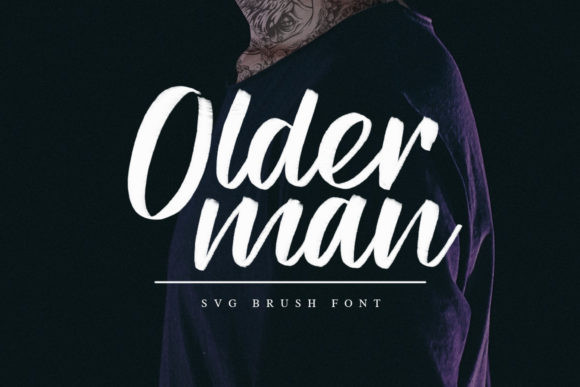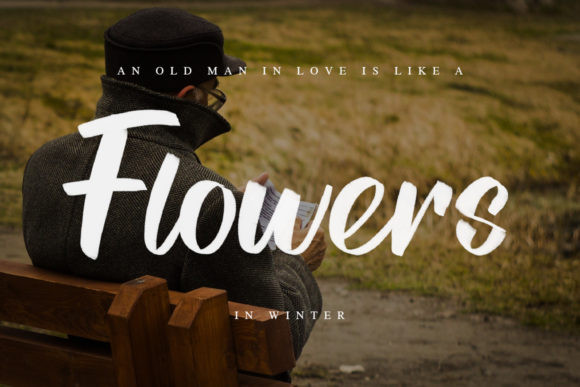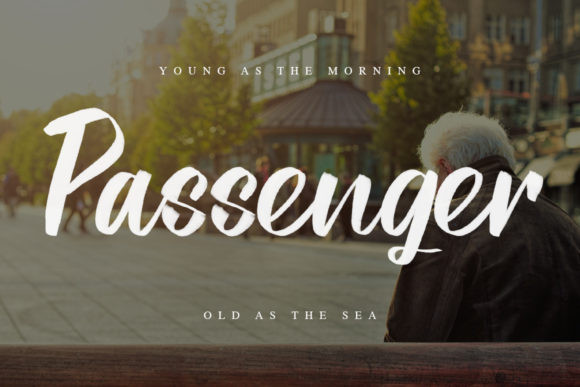
Older Man Font
Older man is a bold and modern handwritten font. Fall in love with its completely different and timeless style and use it to create spectacular designs!